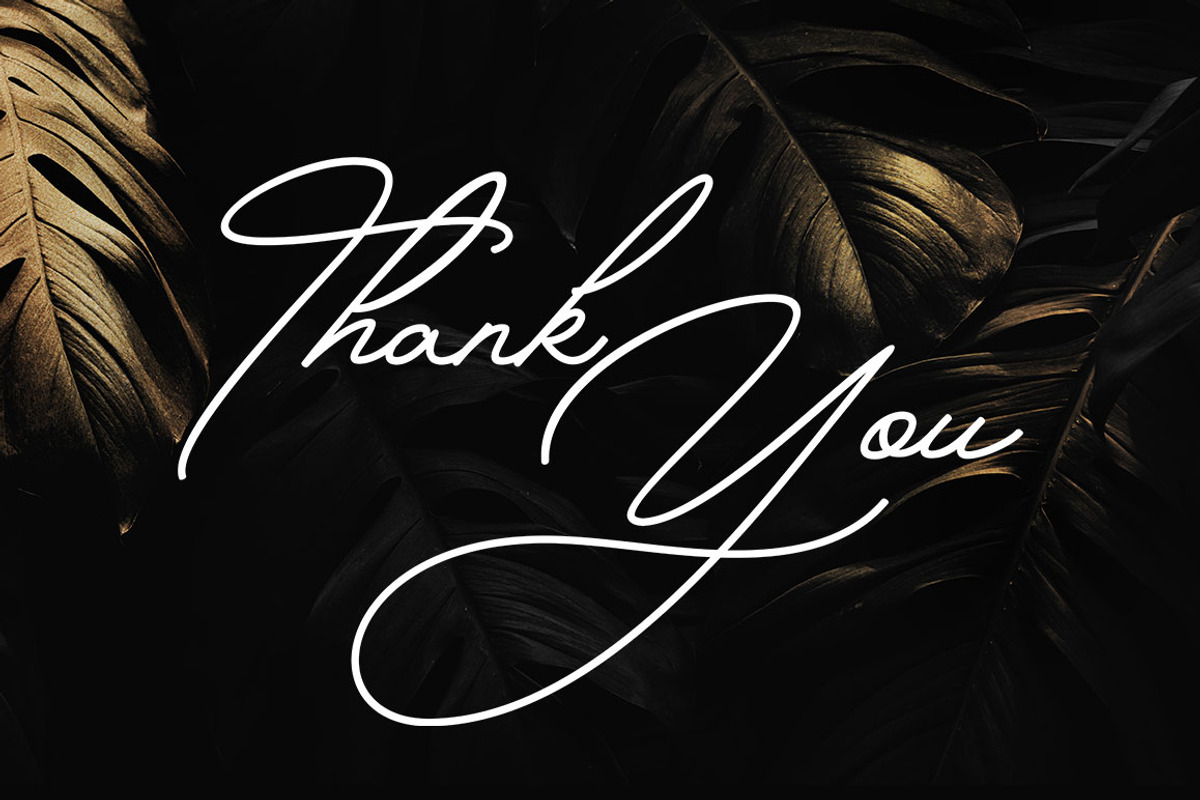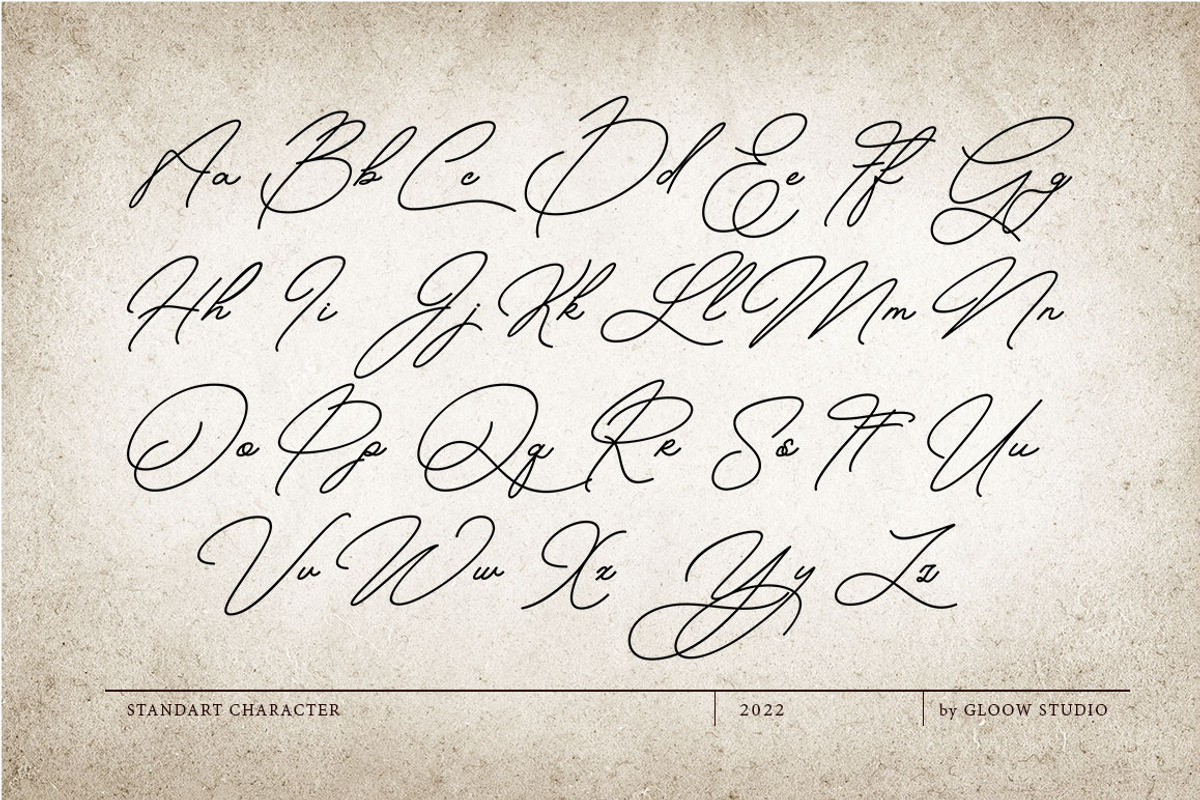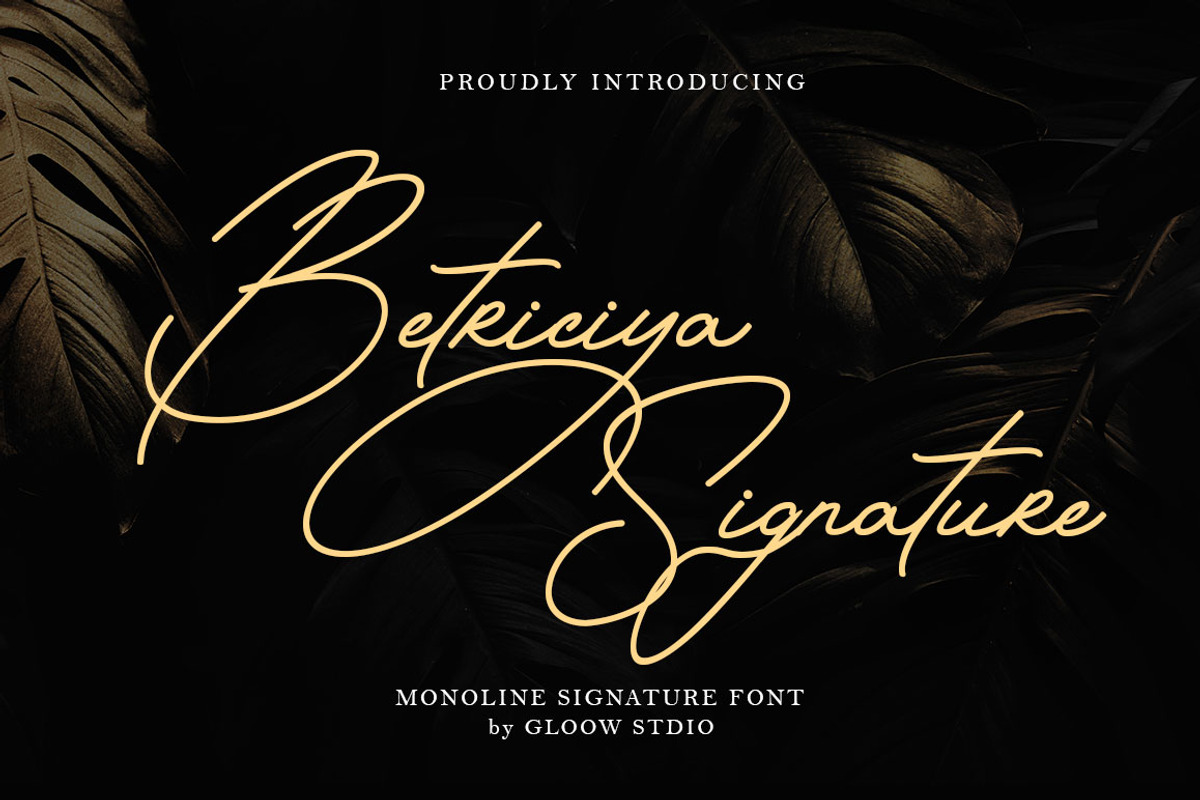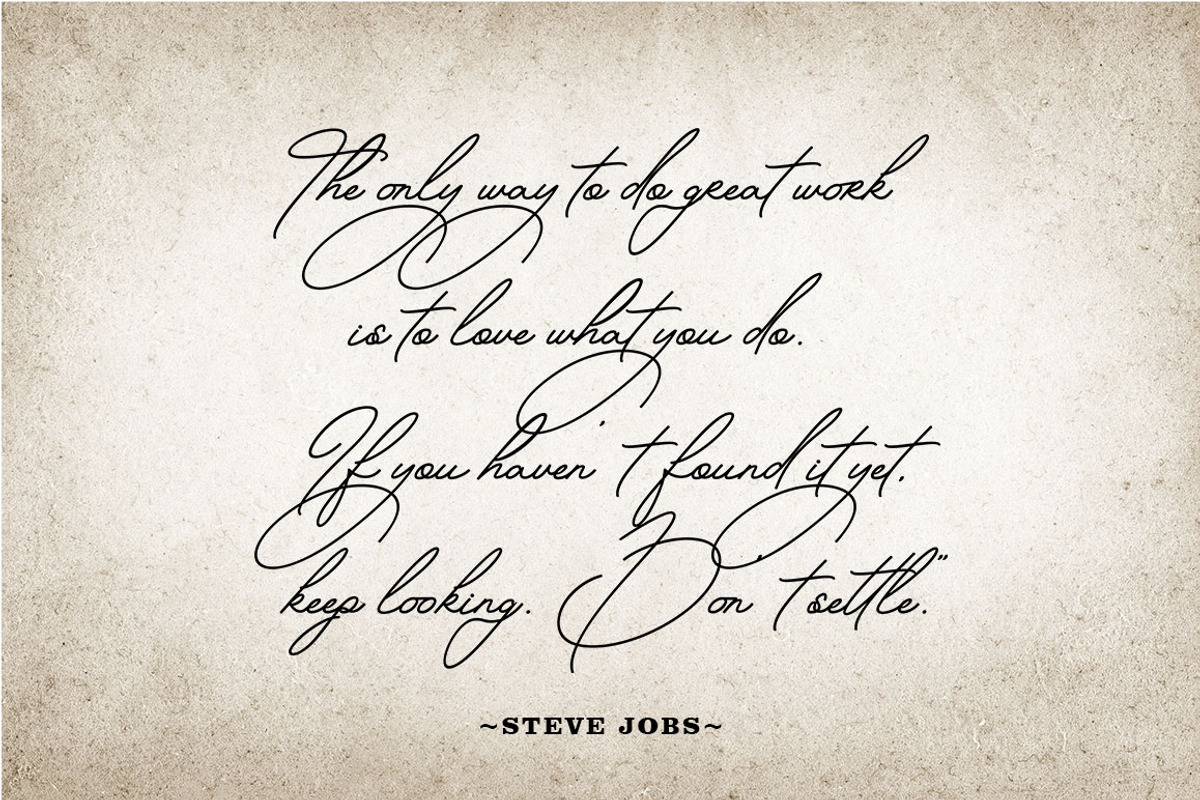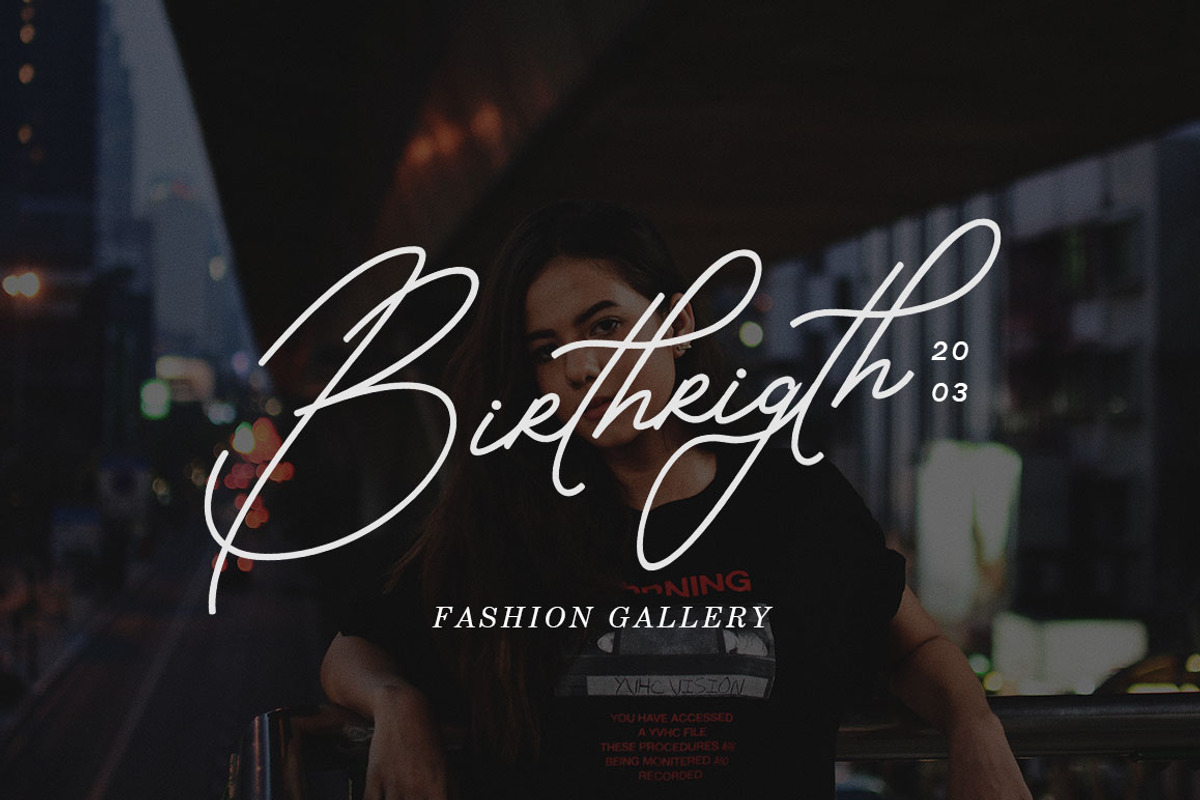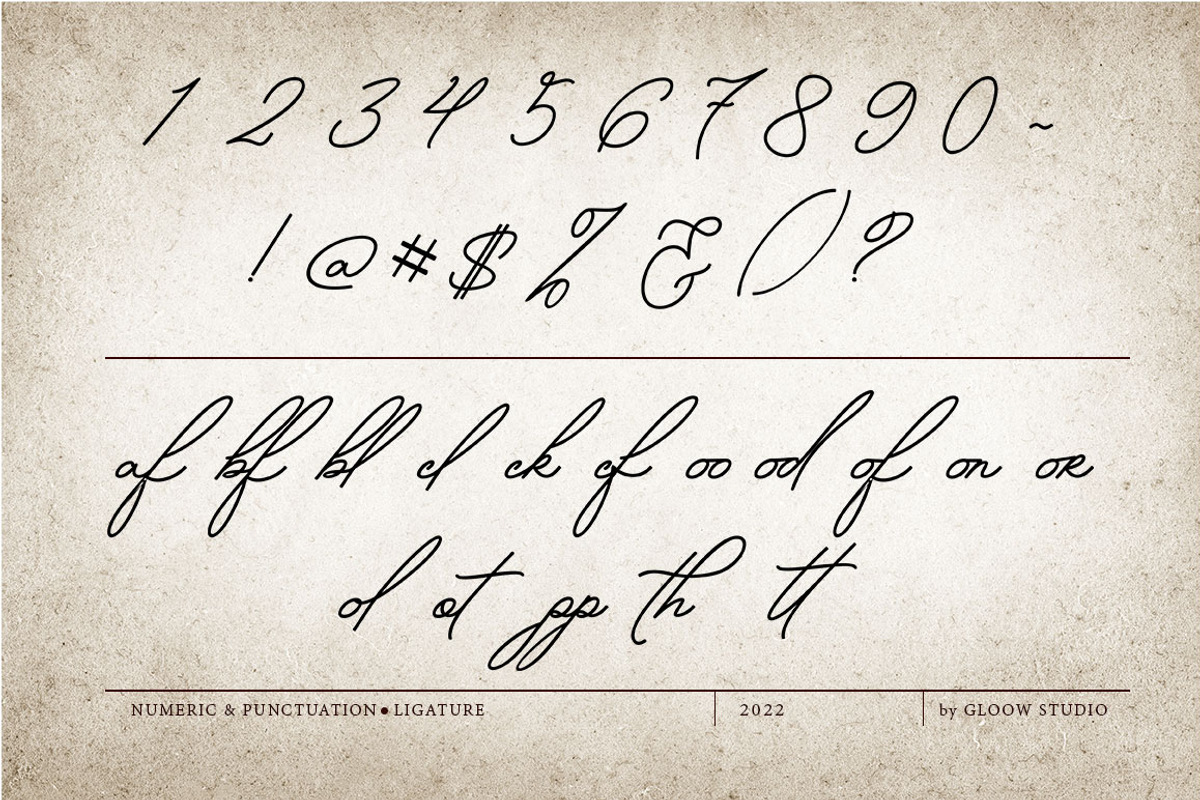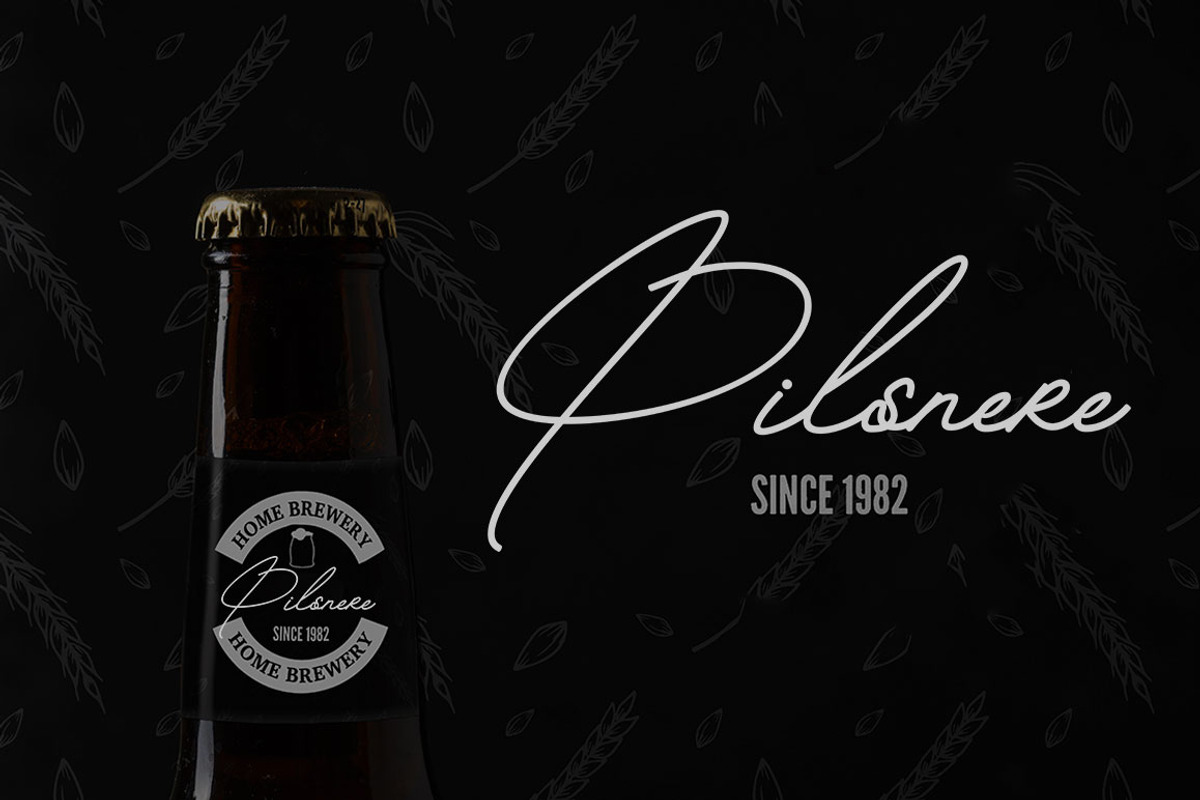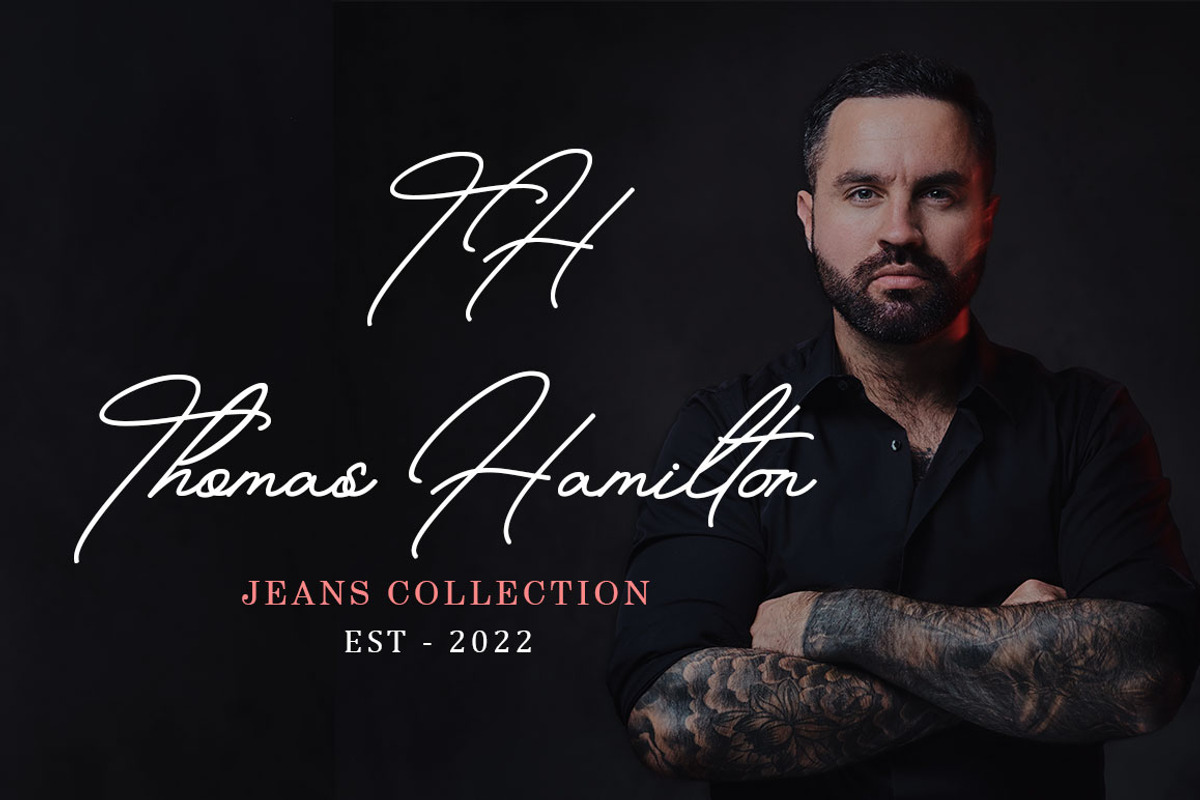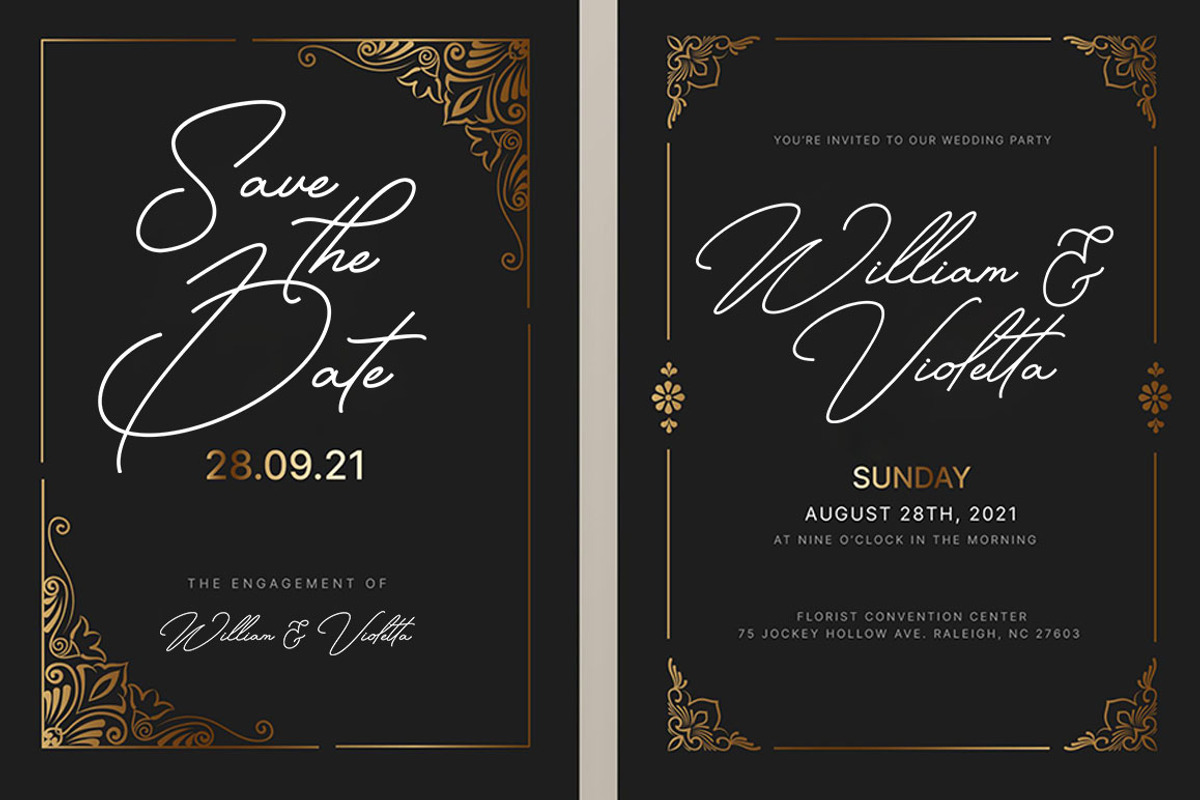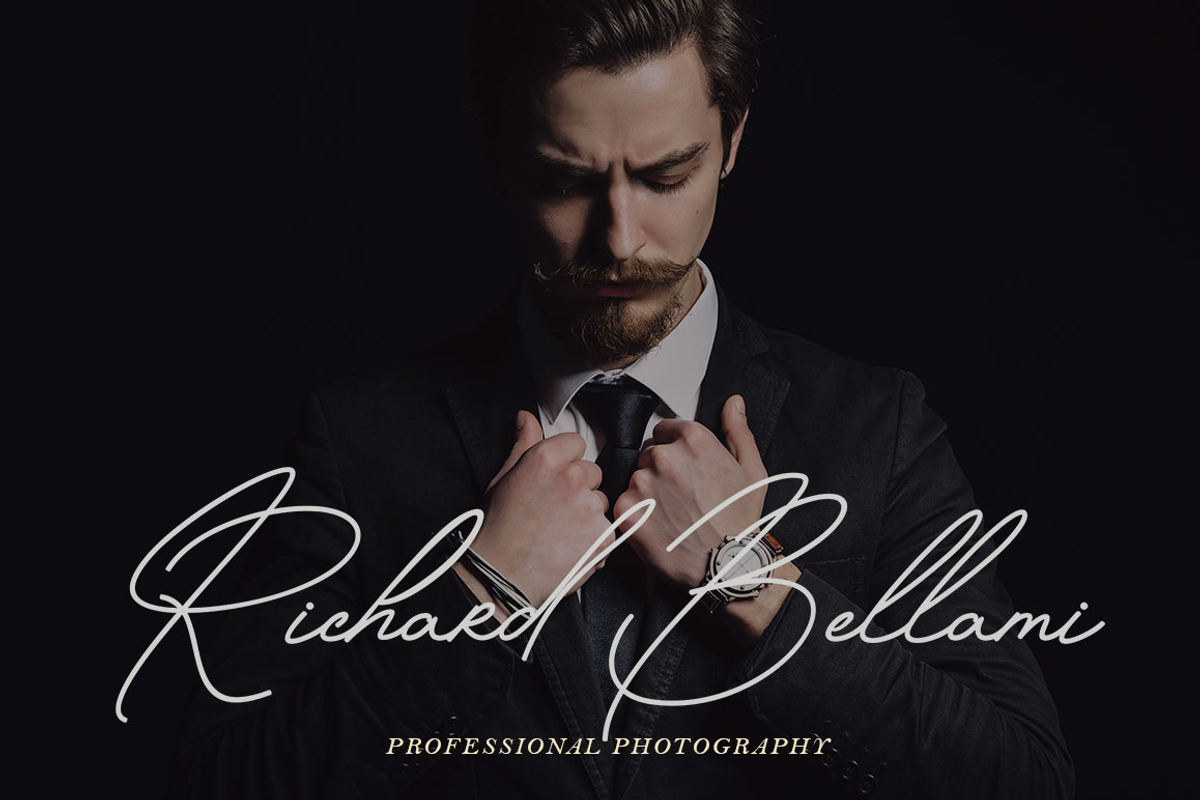
Betriciya Signature
Introducing Betriciya Signature
An elegant, graceful, yet simplistic cursive font.
Inspire your audience, clients, or guests with this stylish, handwritten font that can be used for almost every platform such as websites, social media, pinterest, printed cards and many more!
Aesthetically pleasing handwritten cursive font, just for beautiful you!